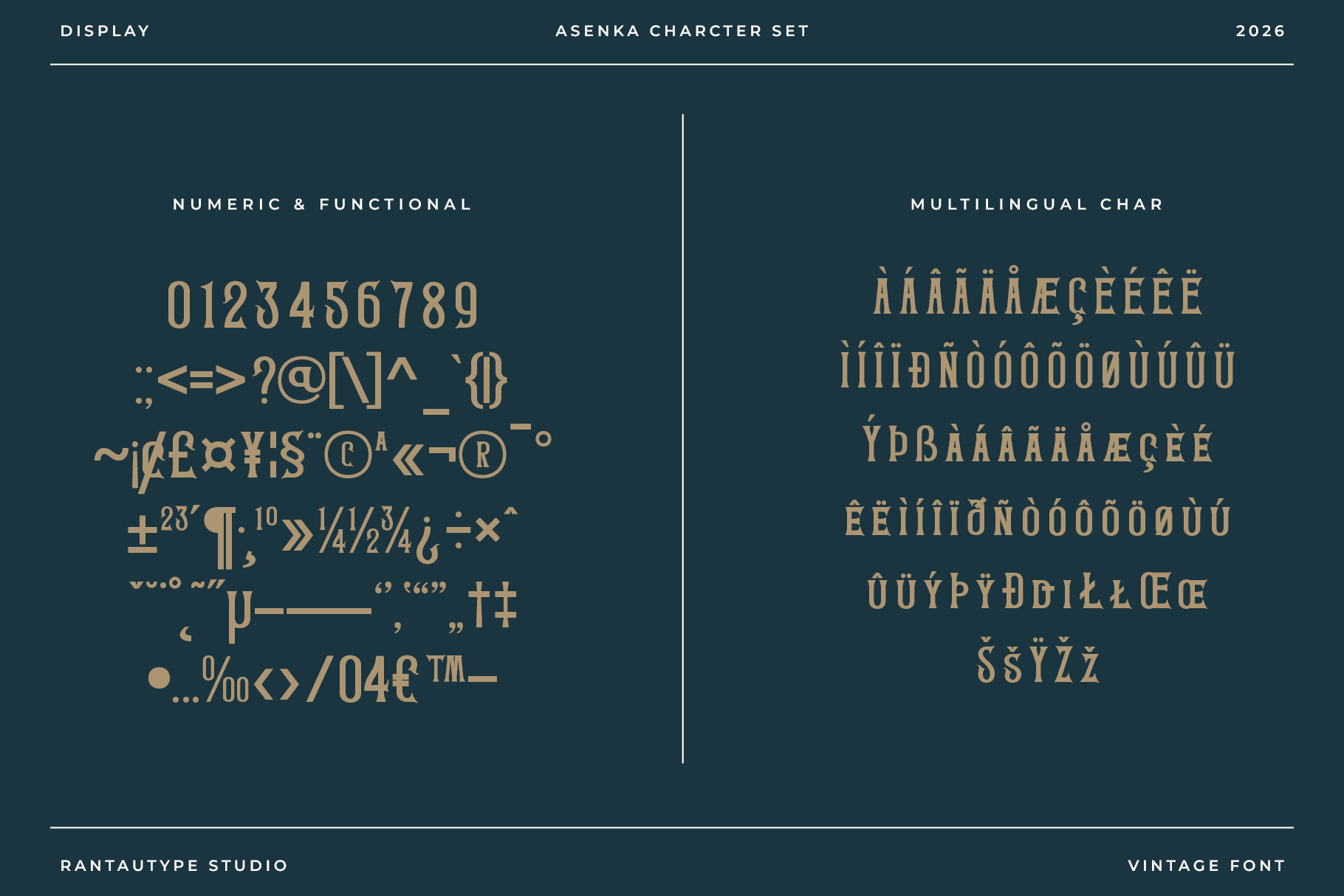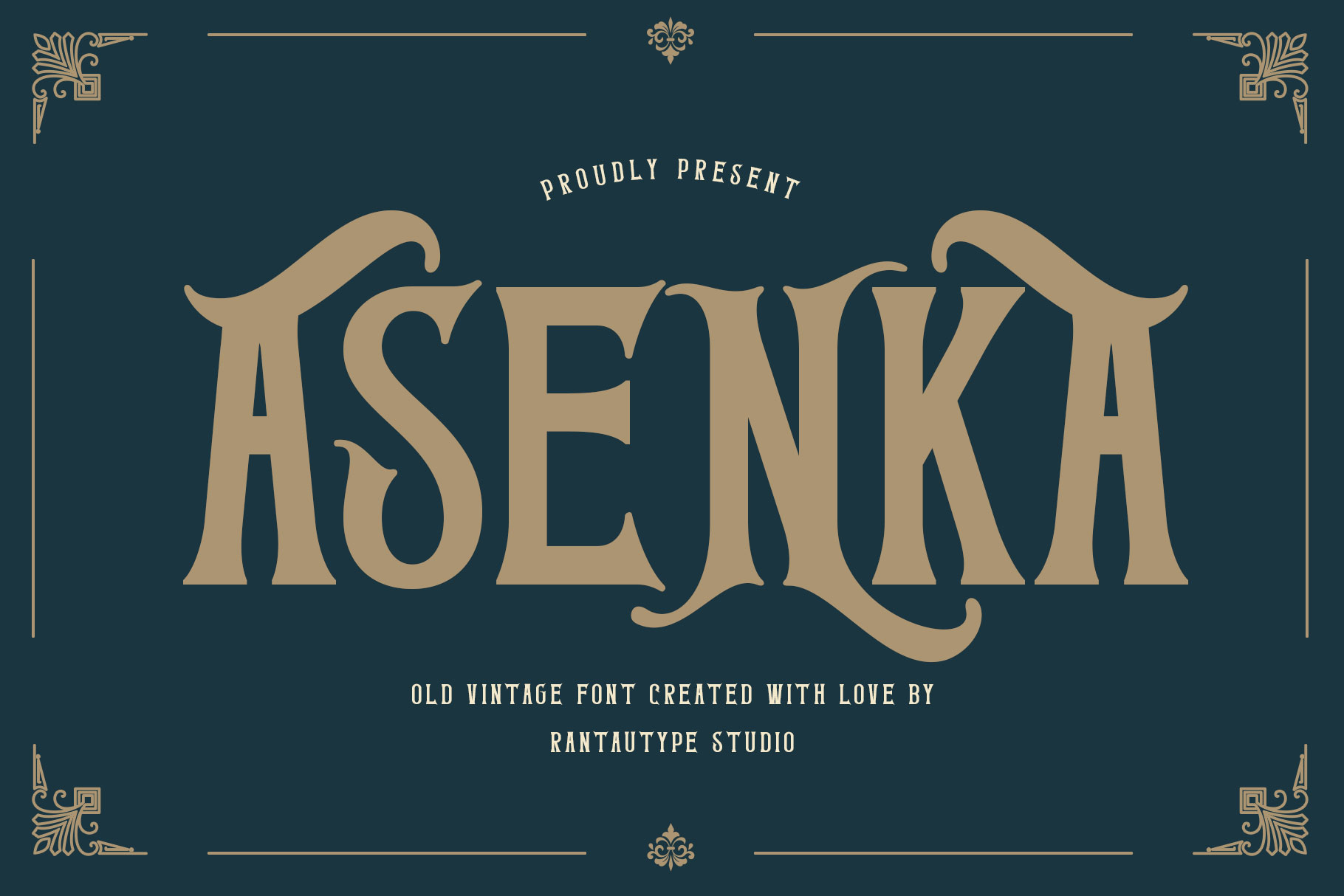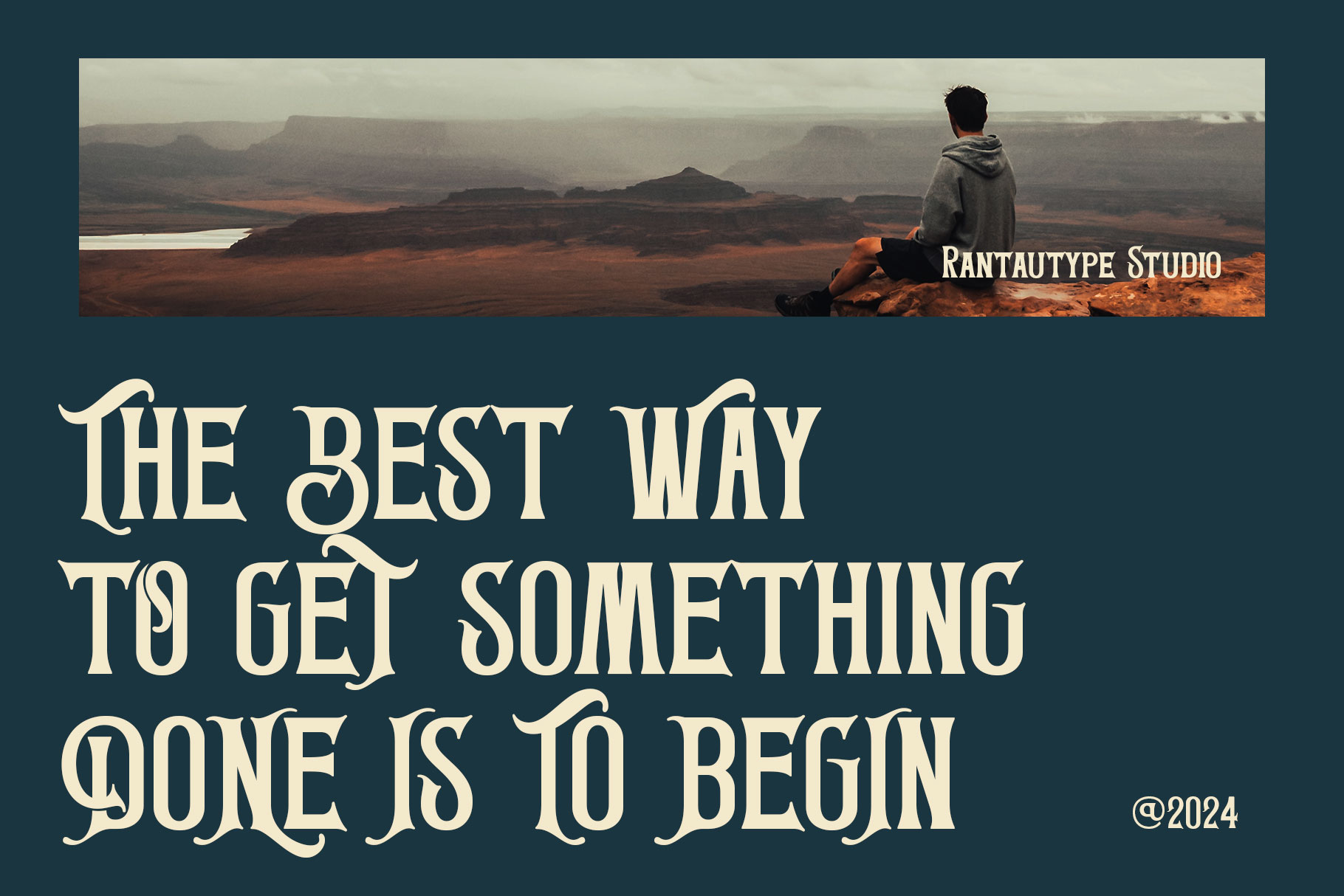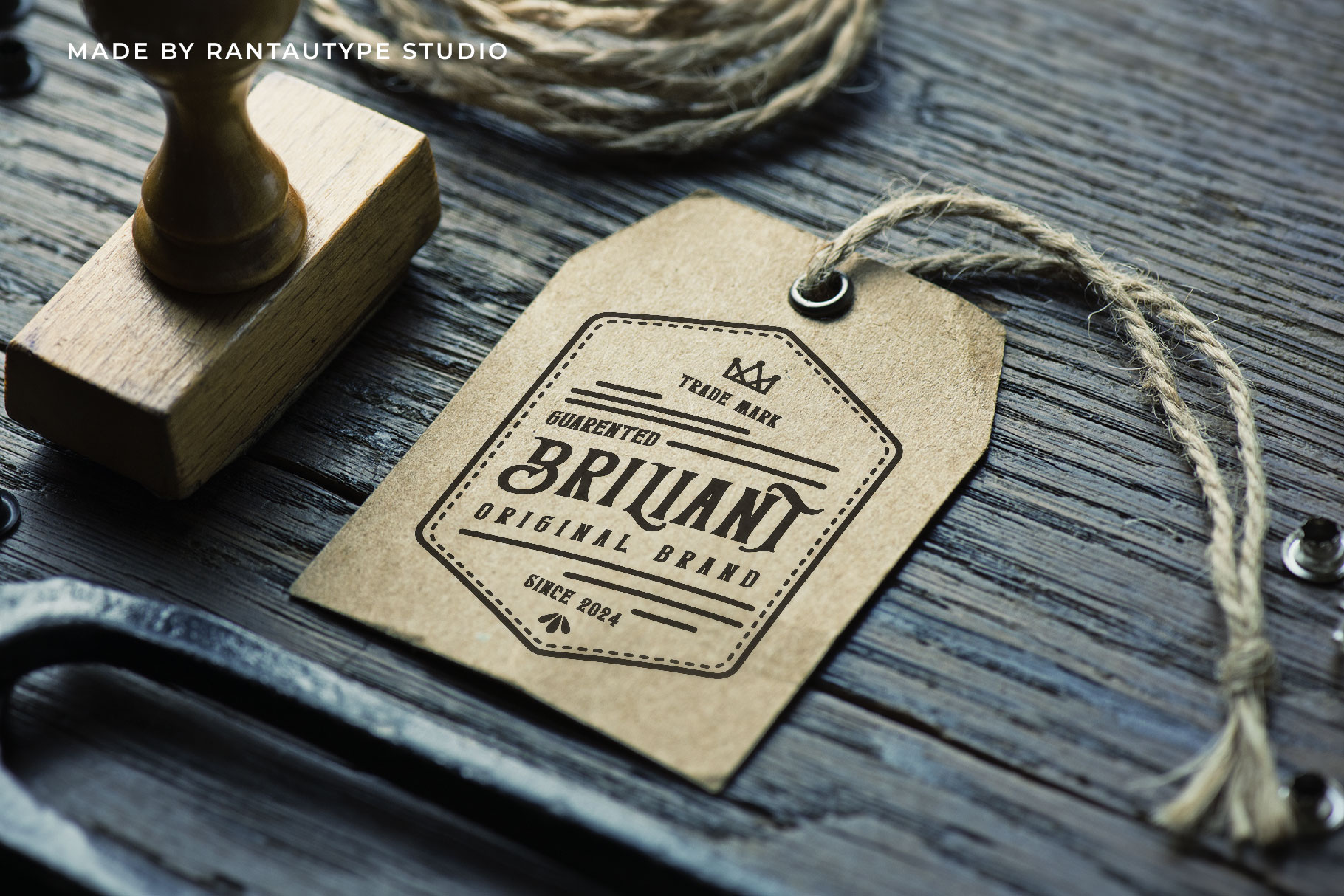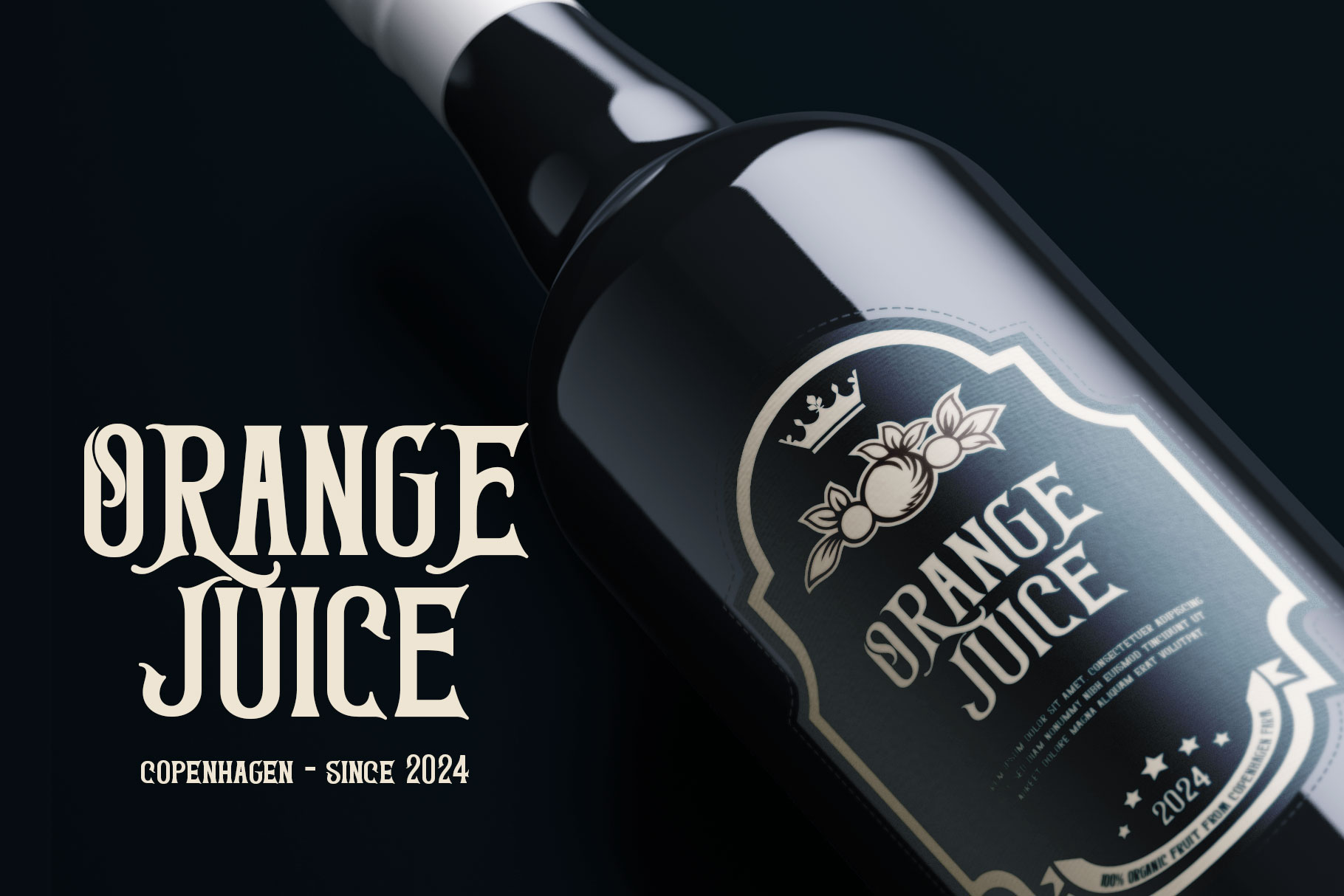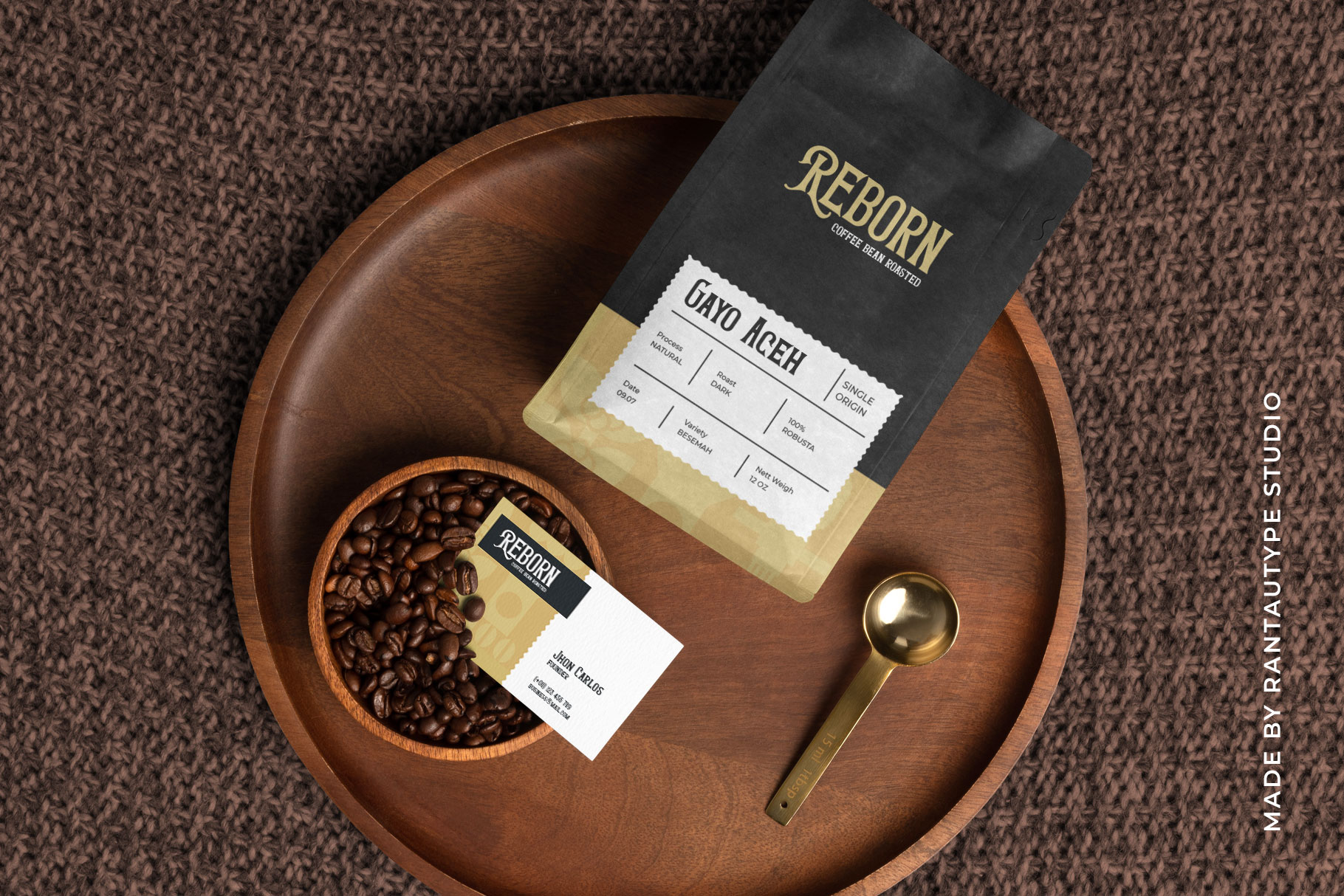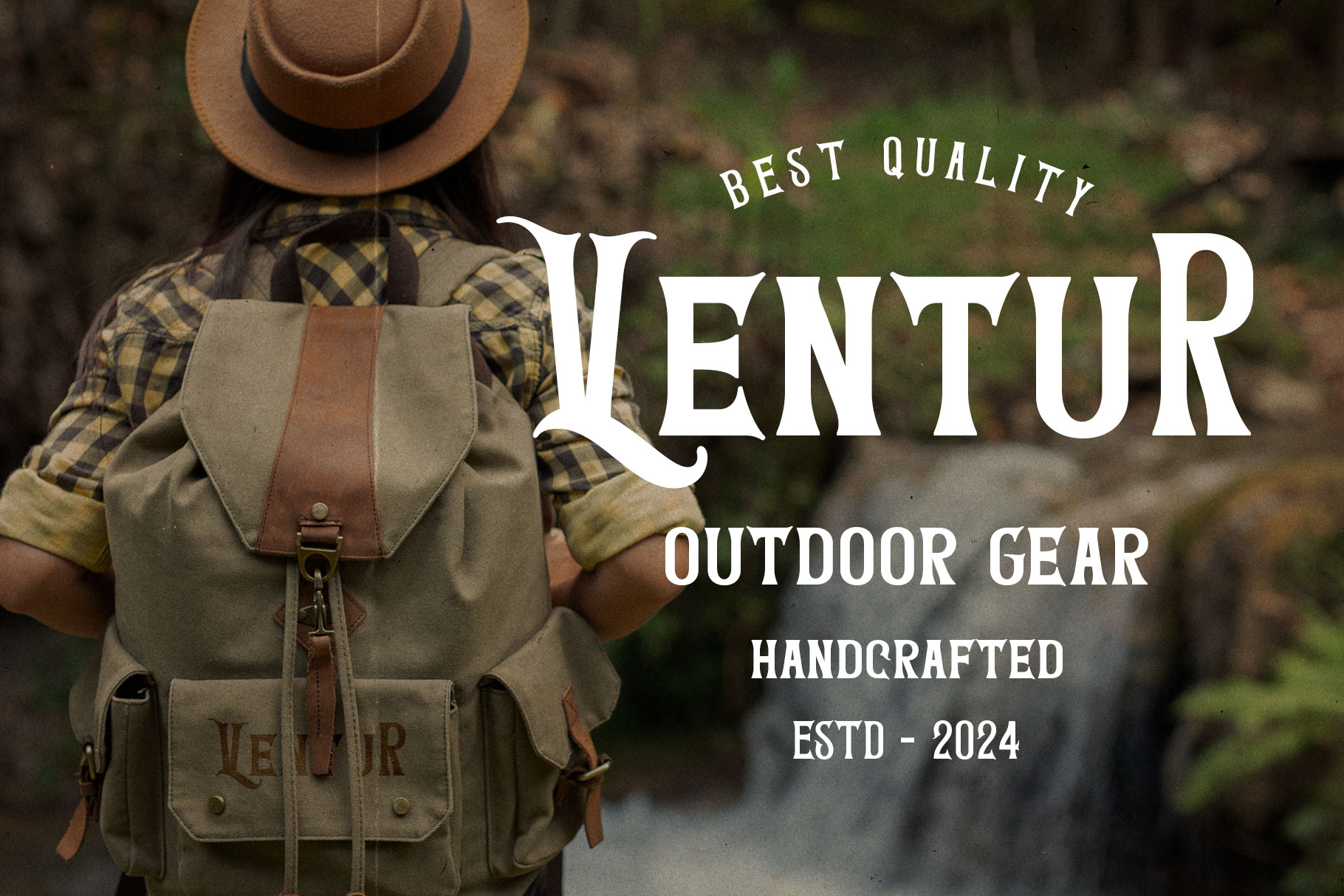
Asenka is display font blends vintage elegance with bold contemporary character, creating a striking and memorable visual presence. Asenka a perfectly choice for any creative endeavor, creating, modern, lifestyle design such as logotype, title, cover, branding, invitations, wedding designs, display and magazine, social media posts, advertisements, printed quotes, product packaging, corporate brand, product designs, labels, photography, watermarks, special events and any other project with vintage touch.
Asenka Display Vintage Font